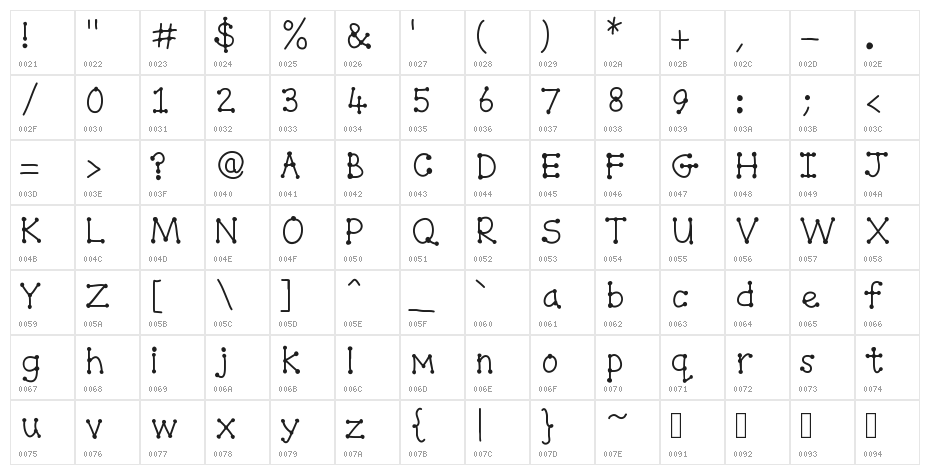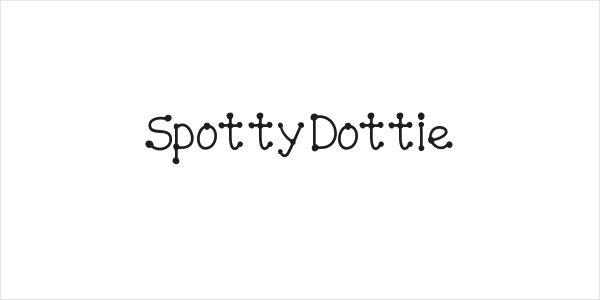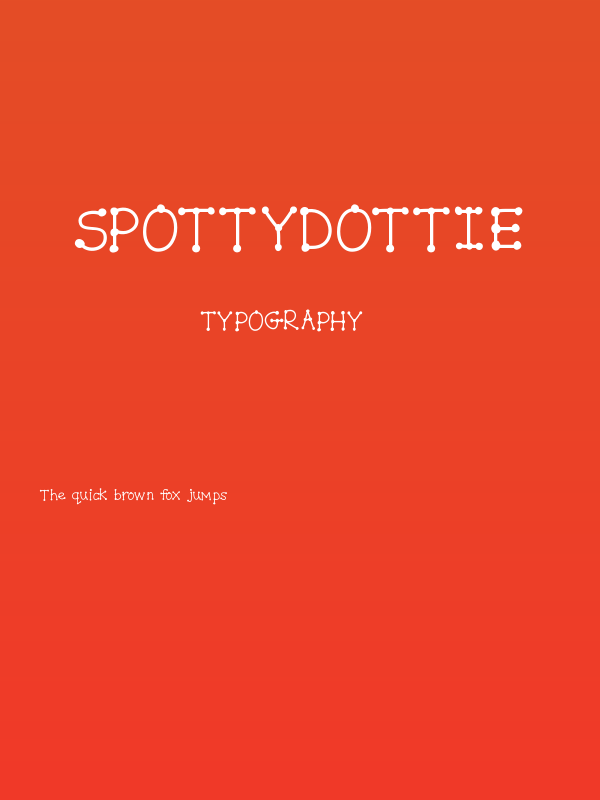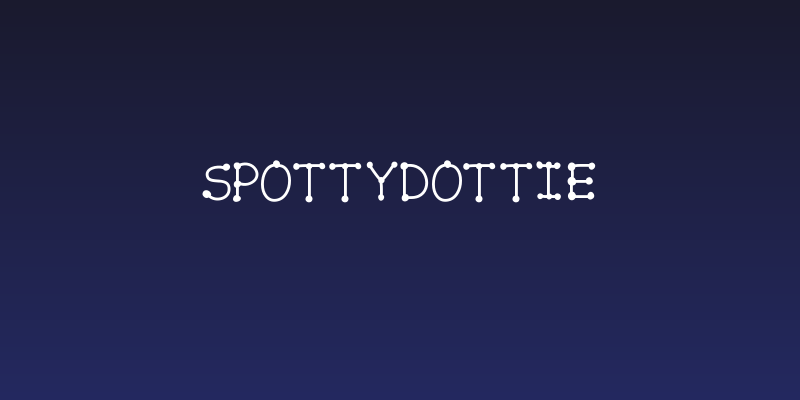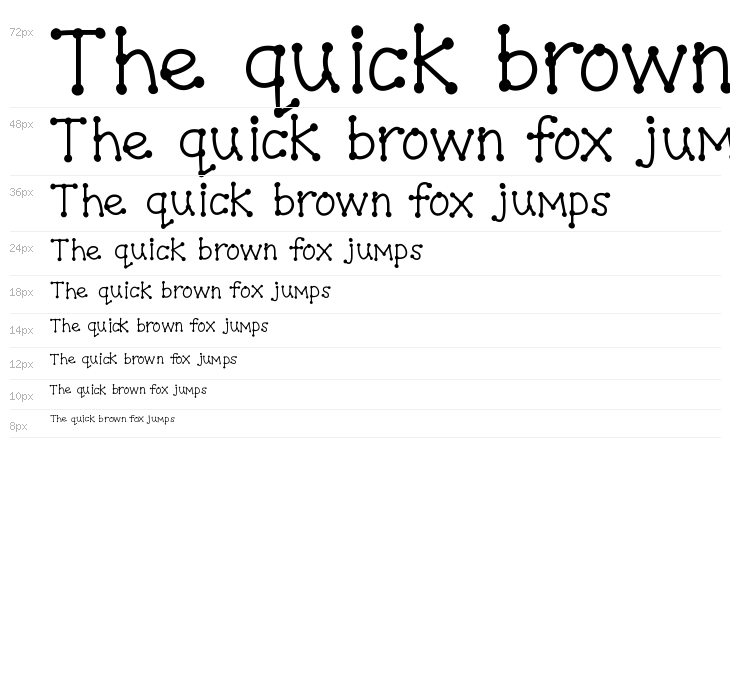
SpottyDottie Font
SpottyDottie Description
This playful and whimsical font features a unique design where each character is composed of dots connected by thin lines, creating a dotted outline effect. The uppercase and lowercase letters maintain a consistent style, with rounded edges and a casual, friendly appearance. Numbers and special characters follow the same dotted pattern, ensuring uniformity across the font. The overall look is light-hearted and fun, making it ideal for projects that require a touch of creativity and informality. Its distinctive style is sure to capture attention and add a unique flair to any design.